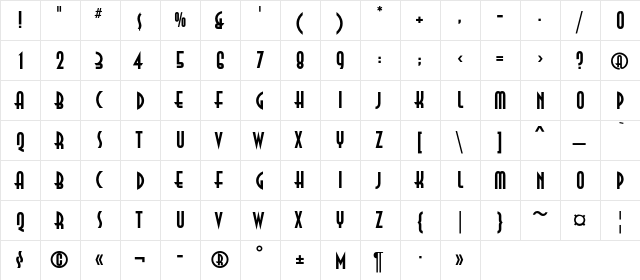
AnnaC Bold
Design Context for AnnaC Typeface
AnnaC is a composed and adaptable typeface that performs quietly and consistently across a wide range of design contexts. The heavy weight commands attention and anchors typographic hierarchies.